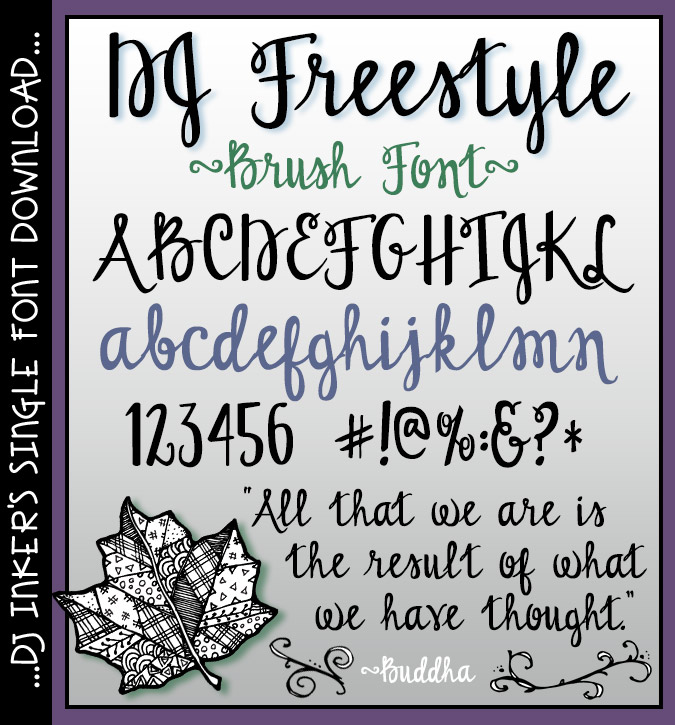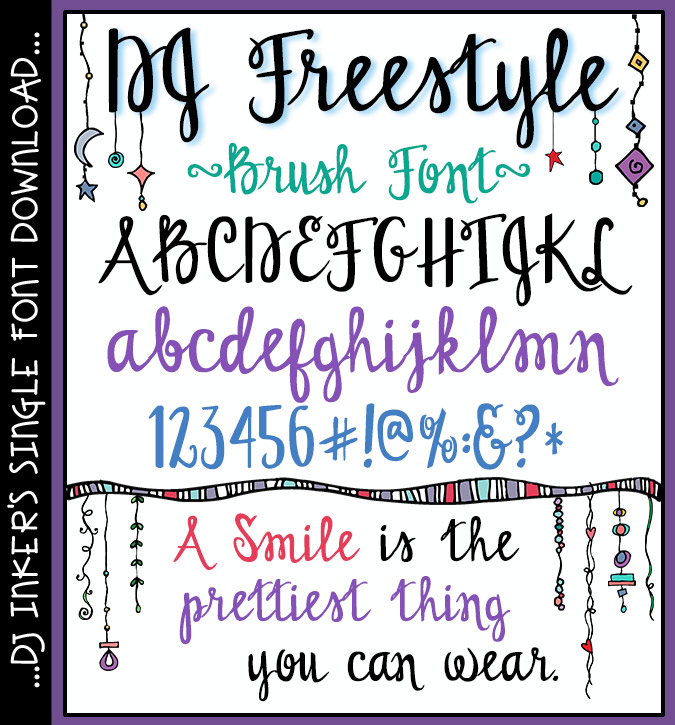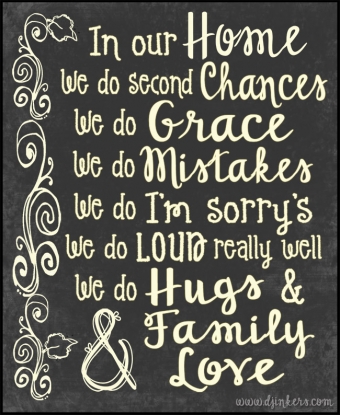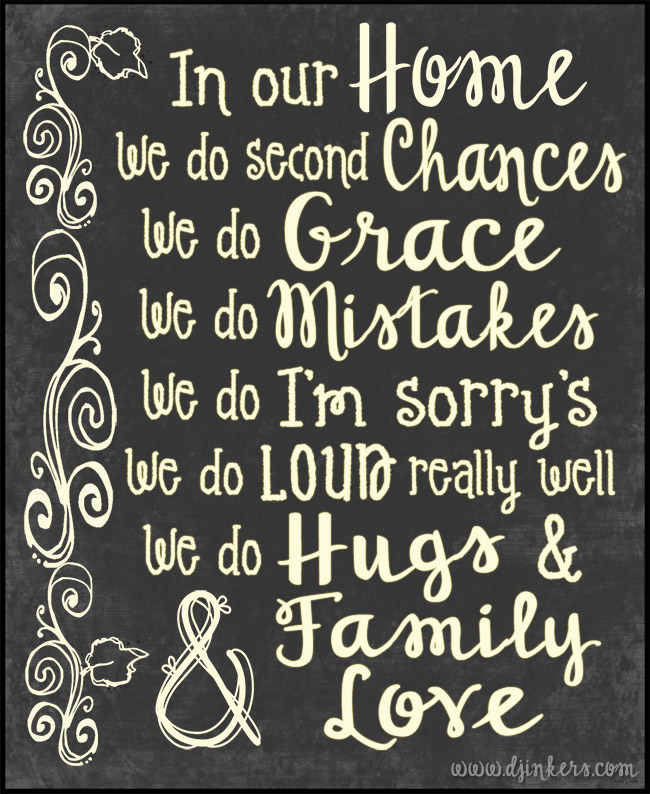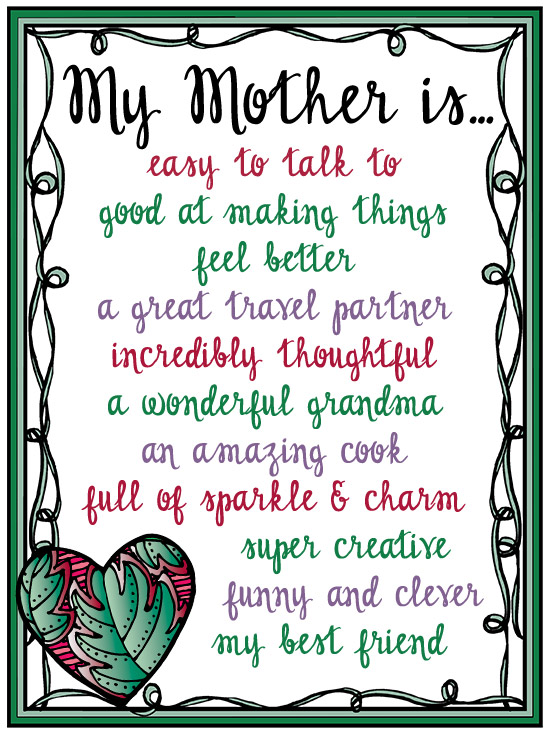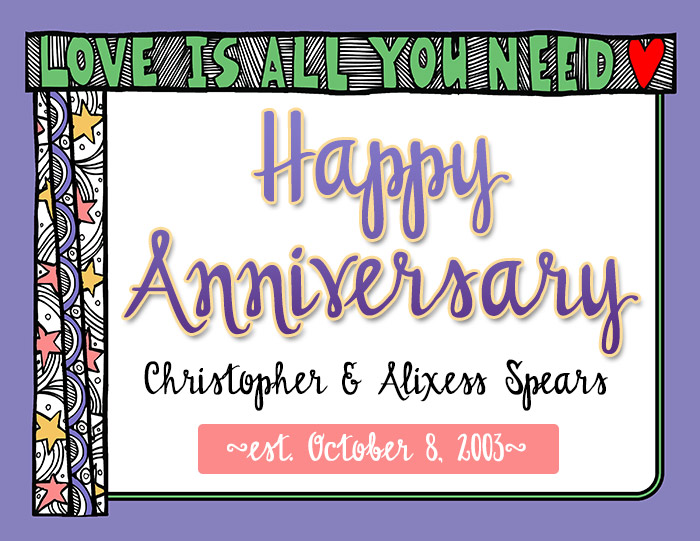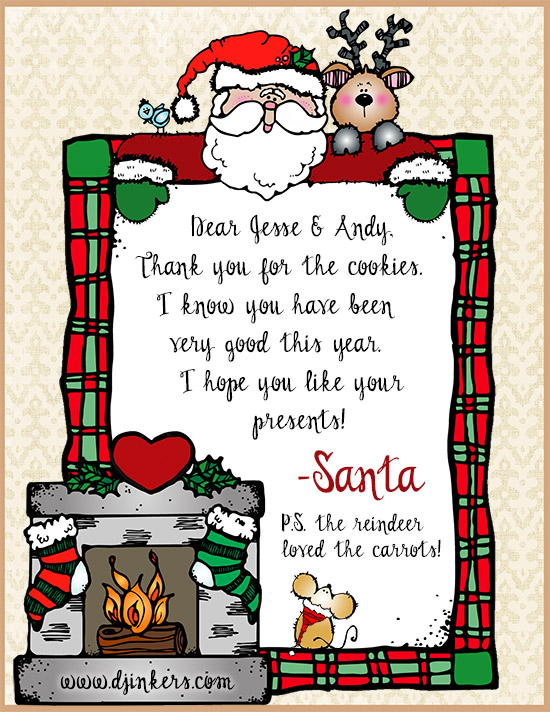
DJ Freestyle Brush Font Download
Bring elegance and style to any project with our fabulous brush lettering
font! DJ Freestyle gives a handwritten
touch and flows together beautifully. Perfect for inspirational thoughts,
weddings, anniversaries, fancy parties and more.